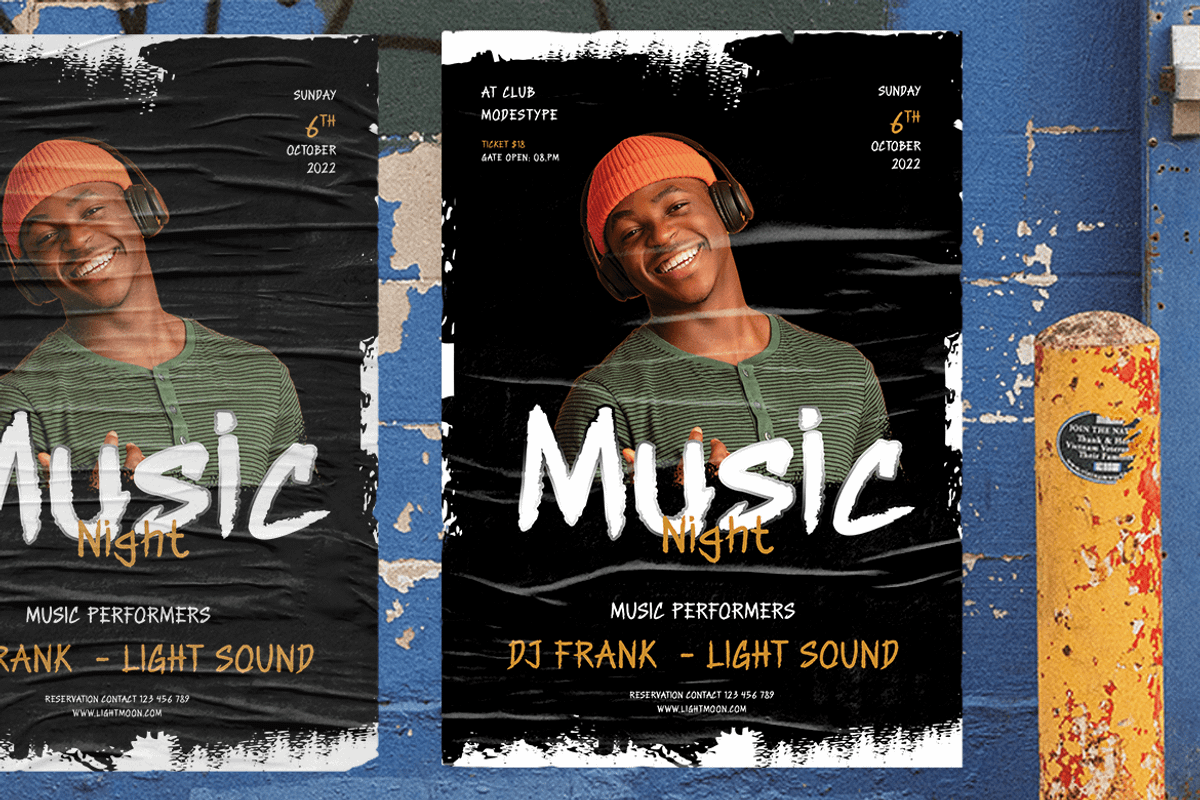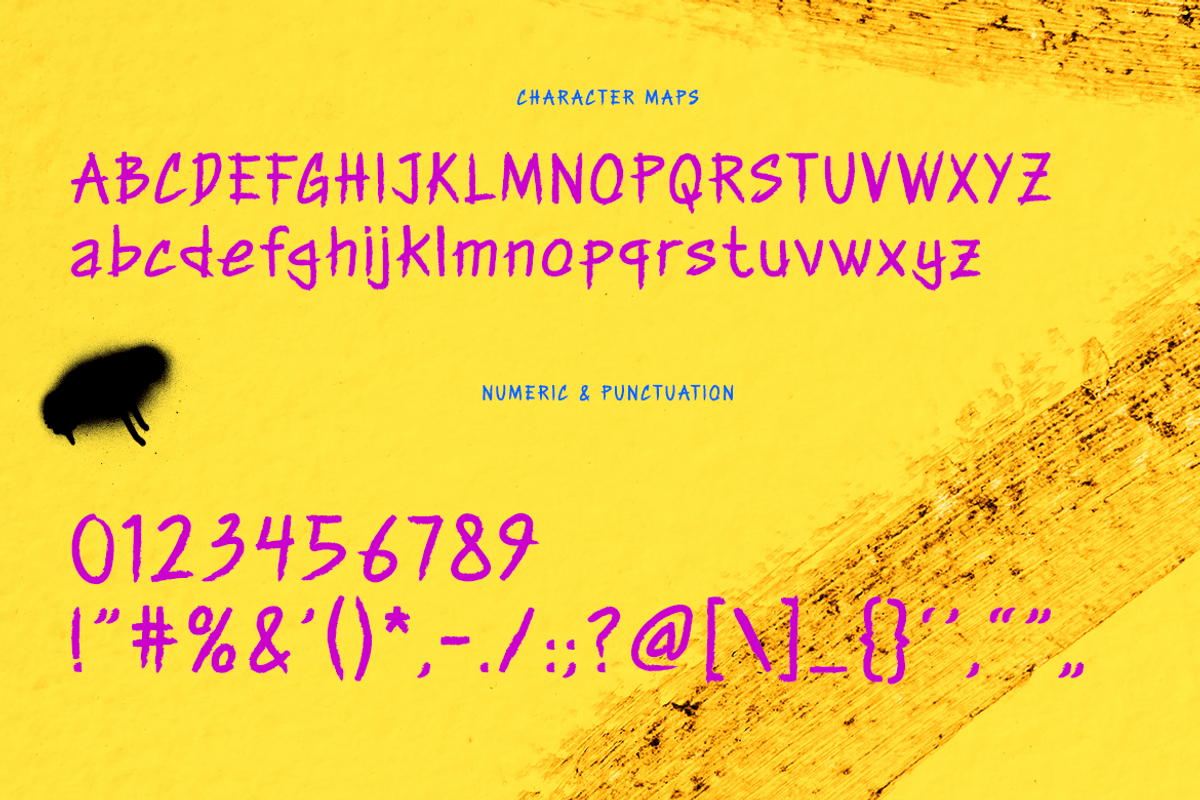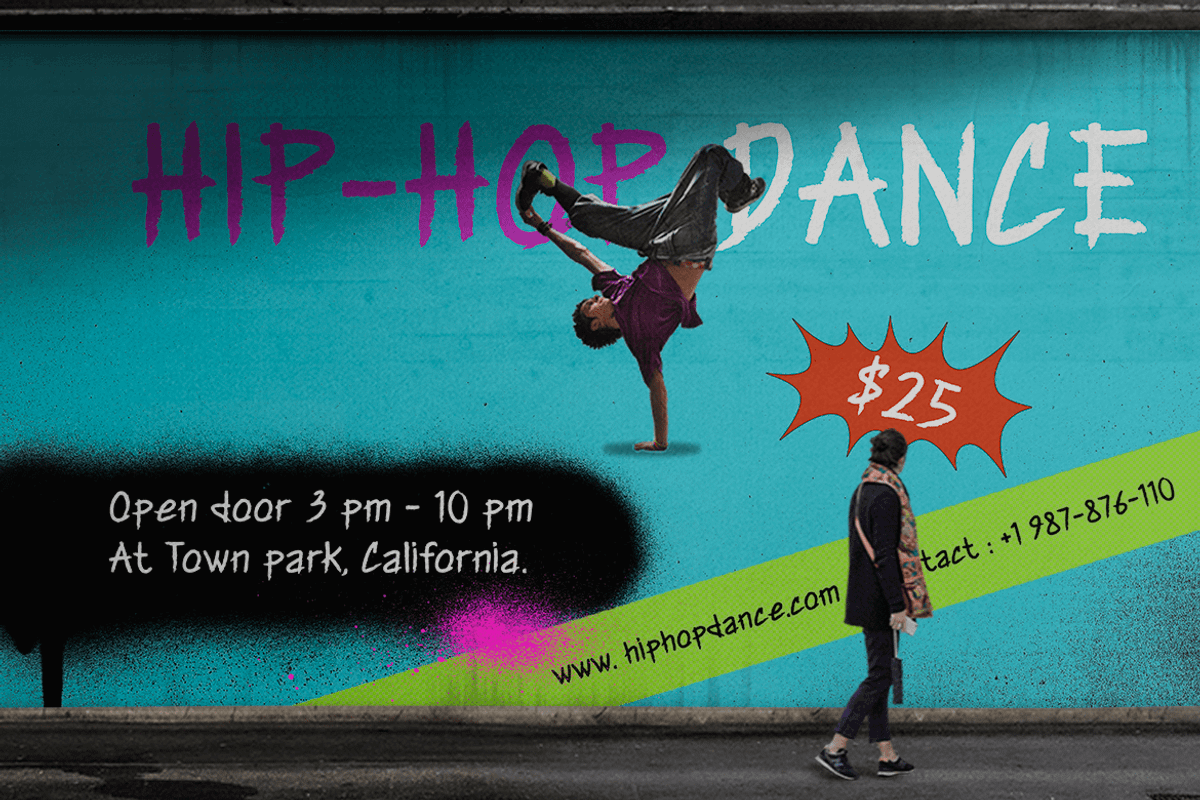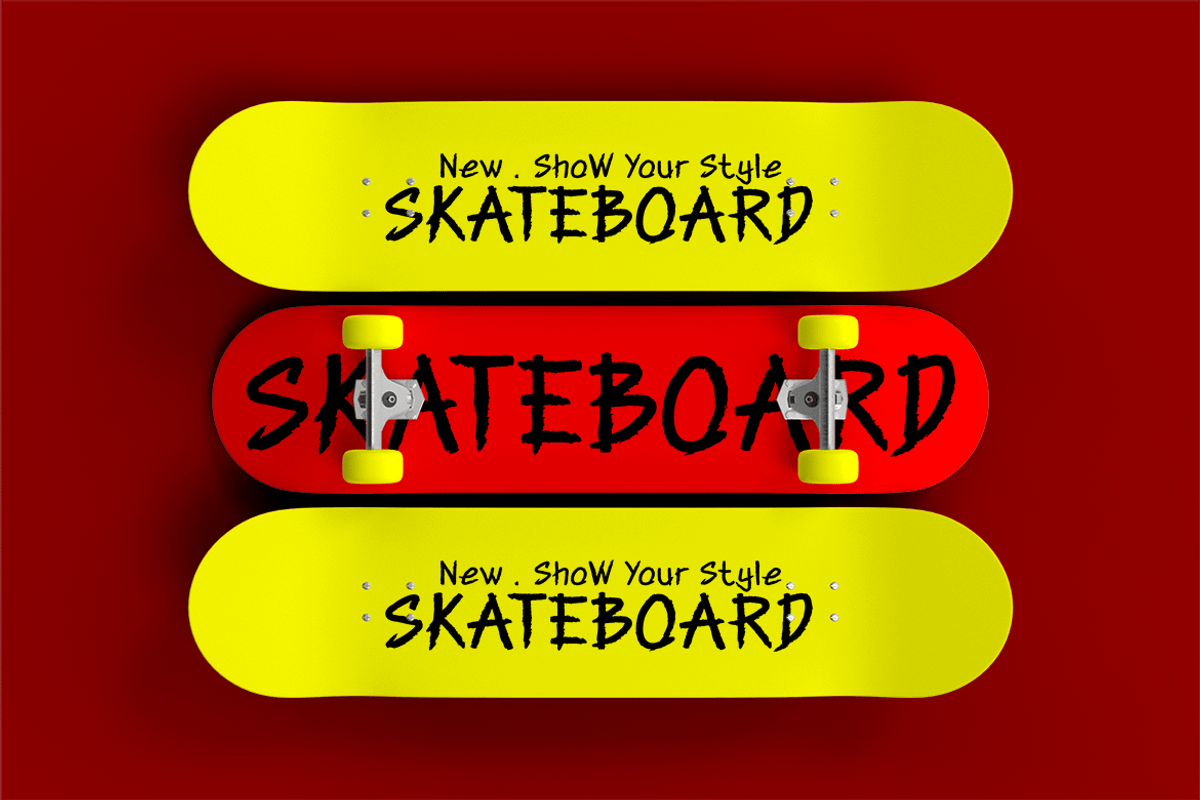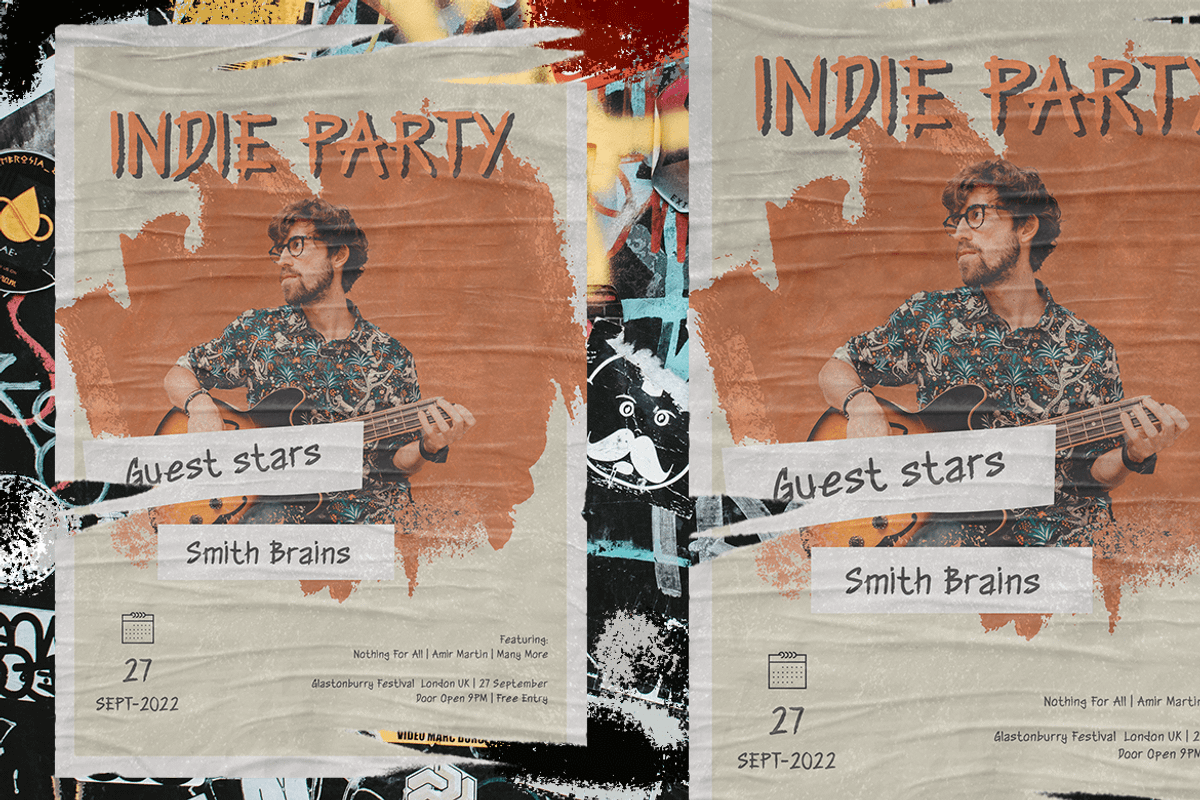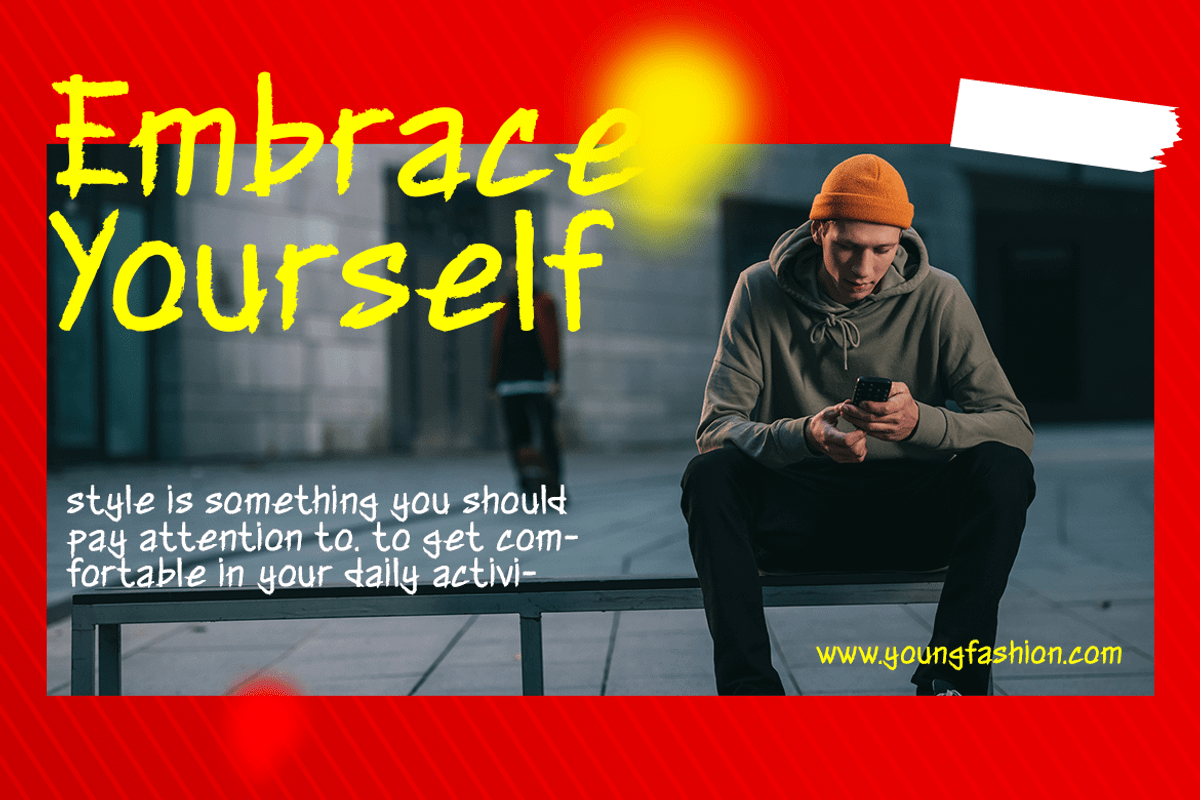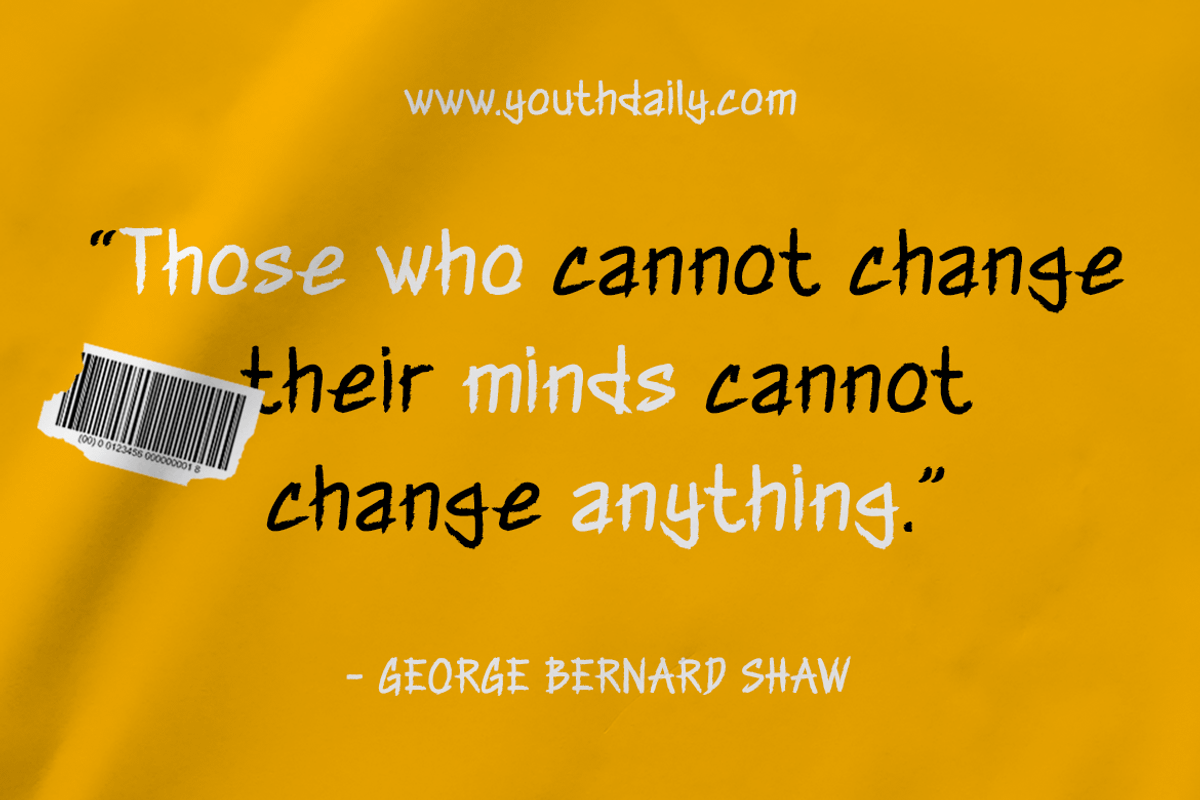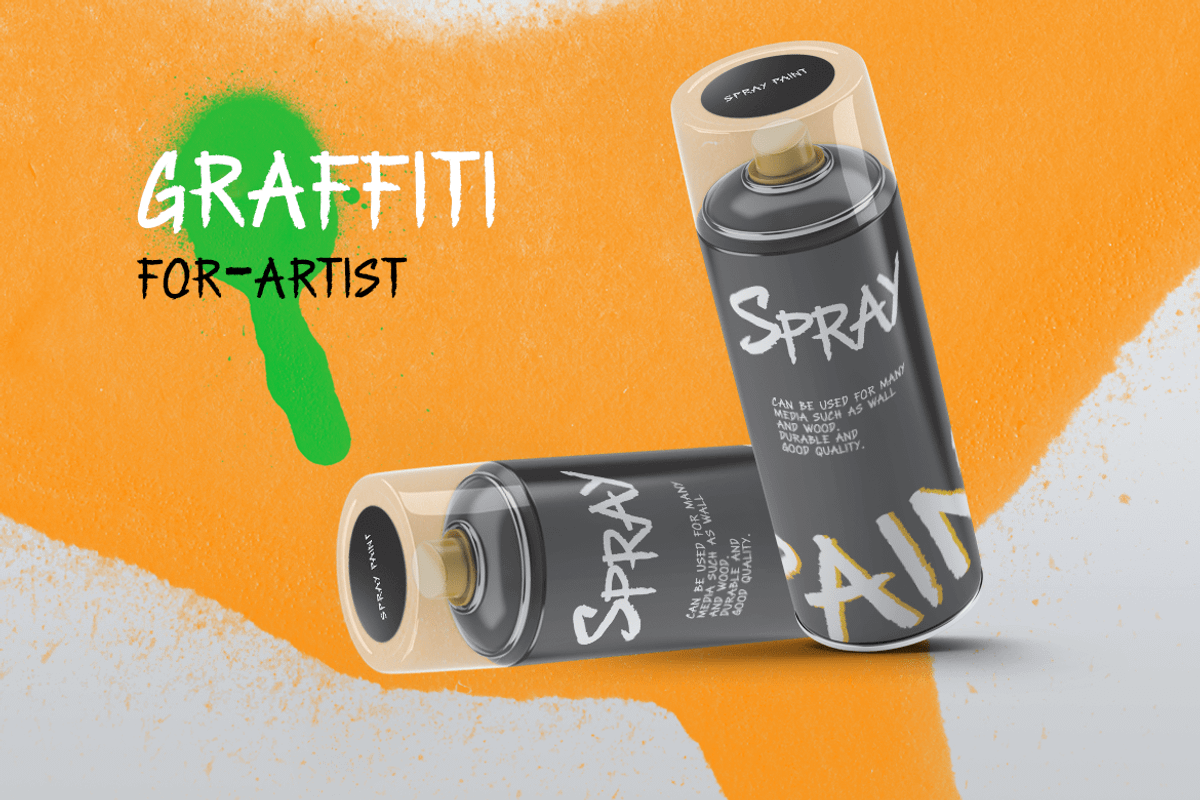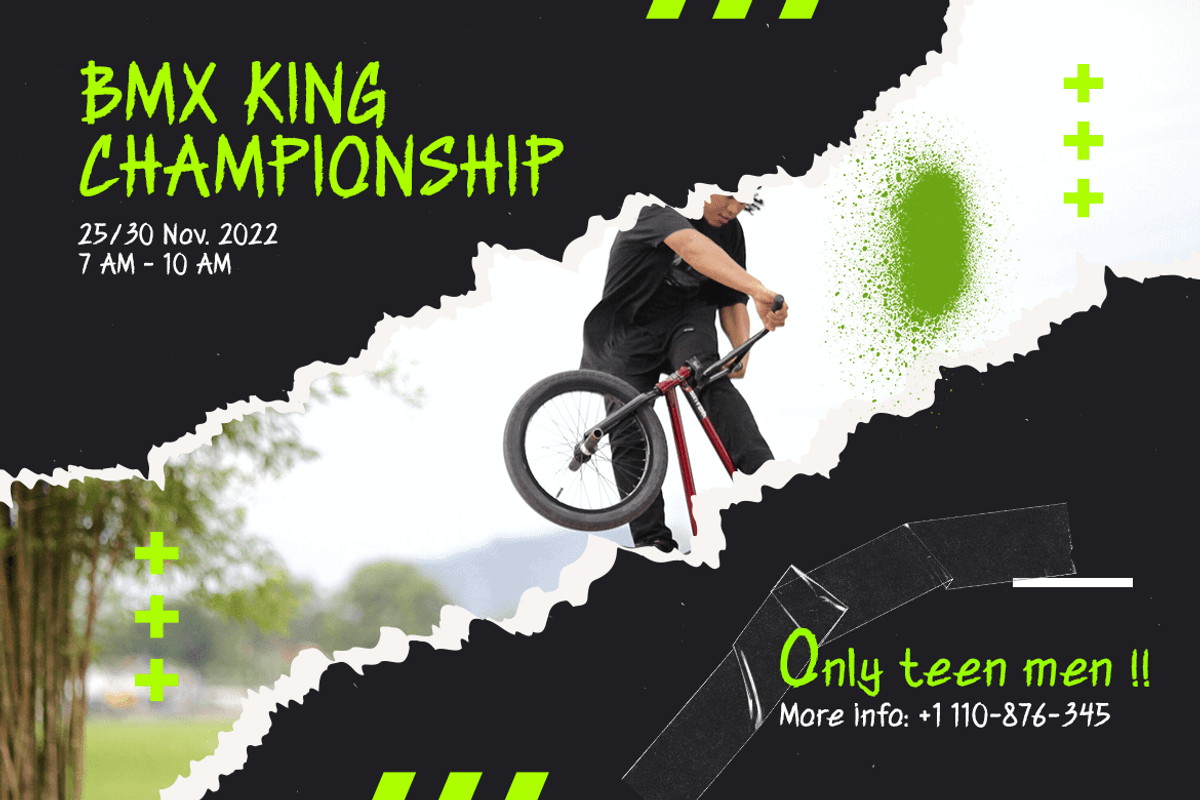
Ink Bleed – Graffiti Display Font
If you’re looking for a font that’s as bold and daring as you are, look no further than Ink Bleed – the perfect graffiti display font for all your design needs. With its modern, edgy style and unique blend of handwriting and graffiti elements, Ink Bleed is the perfect choice for anyone looking to make a statement.
Moving as fast as we can in this rough and energetic way of life, Ink Bleed is the perfect movie font for your latest production or music font for your next album cover. Its bold strokes and dynamic design make it the perfect choice for posters, flyers, and more.
And with its SEO-friendly and versatile design, Ink Bleed is the ideal choice for anyone creating content for Instagram, YouTube, or any other platform. With its eye-catching and memorable design, it’s sure to capture the attention of your audience and leave a lasting impression.
So why wait? Choose Ink Bleed for your next project and discover the power of this unique and captivating display font. Whether you’re a graphic designer, filmmaker, or musician, Ink Bleed is the perfect choice for anyone looking to stand out from the crowd and make a statement.